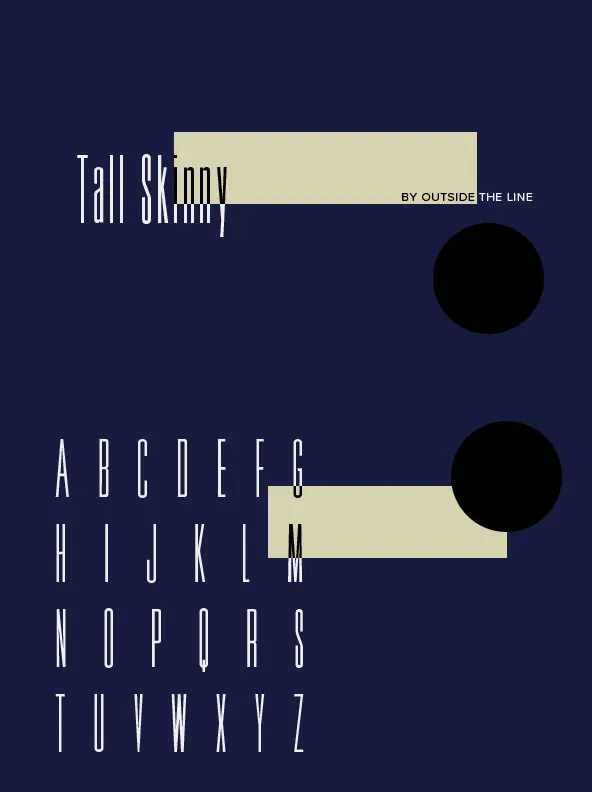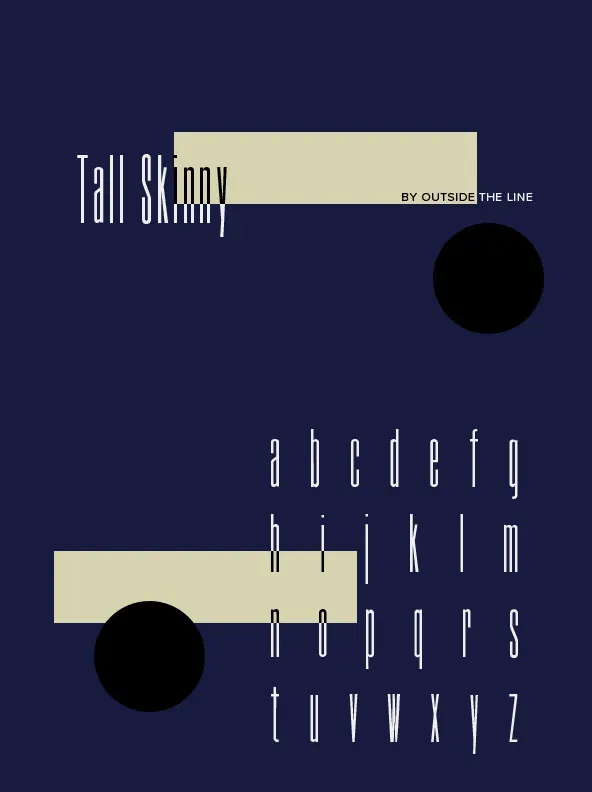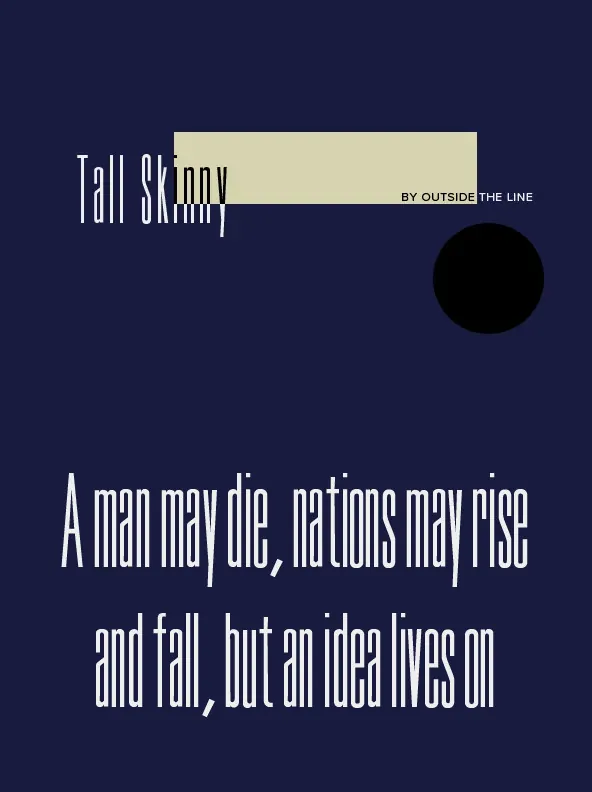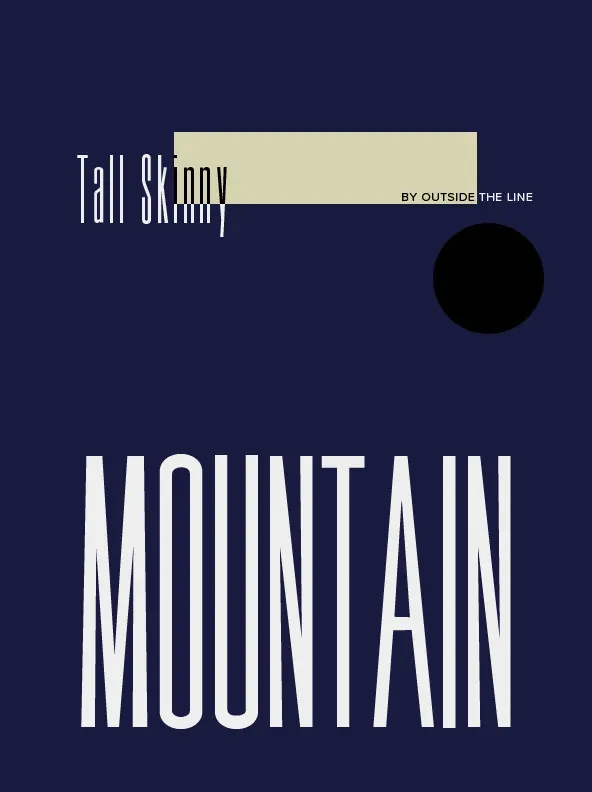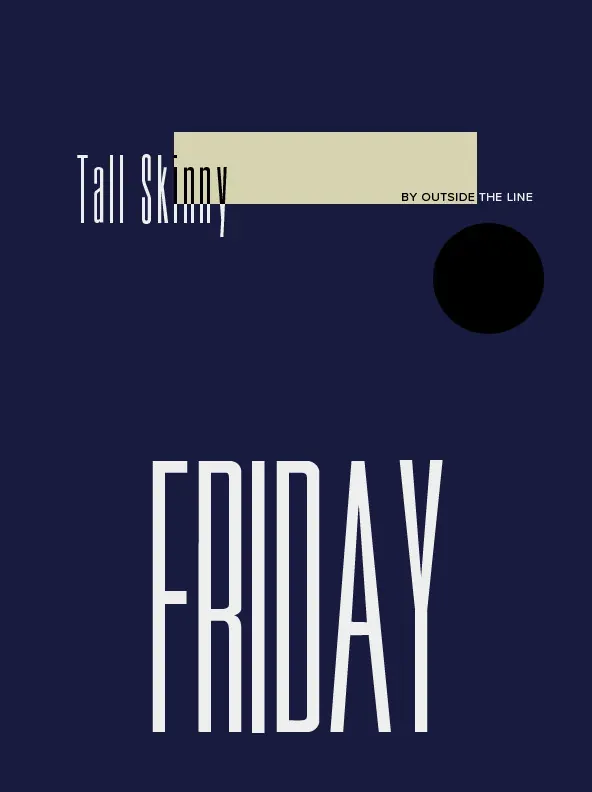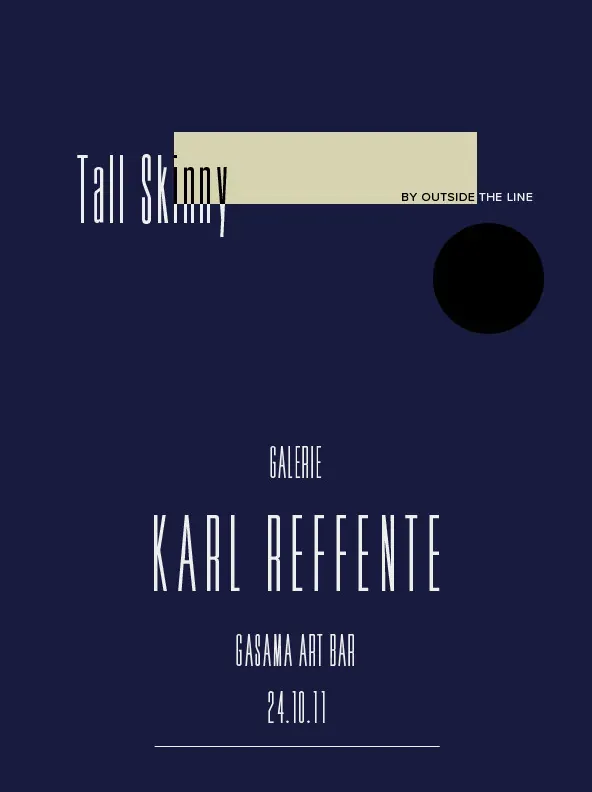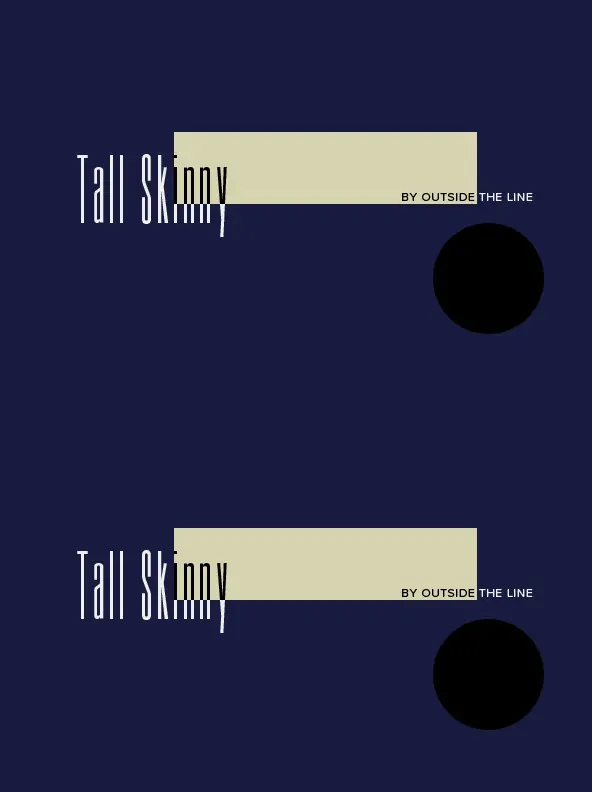
Tall Skinny Condensed was designed this way because I felt a serious need for that one big, thin word to fit in a narrow space. It is great for ‘SALE!’ in a one column ad. Also is a life saver for several long words in a narrow space like Merry Christmas…